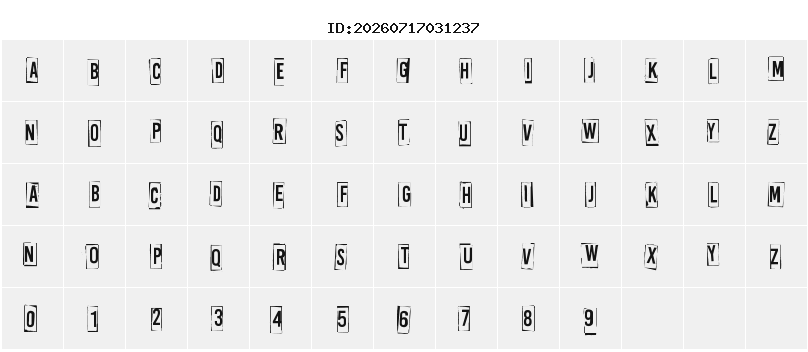
A Box For 2 Preview
• Font Name: A Box For 2
About A Box For 2.ttf
A Box For 2.ttf is a modern, elegant sans-serif font designed for ultimate readability and visual harmony. Perfect for branding, headlines, web design, and print materials.